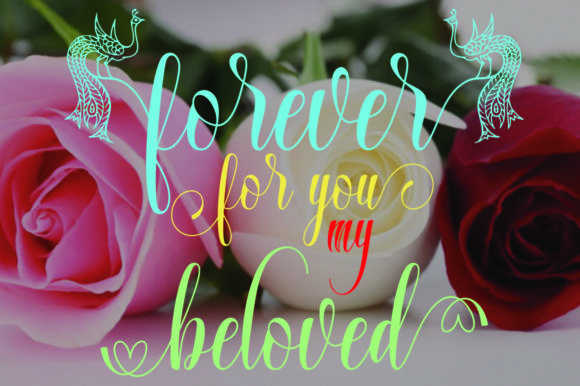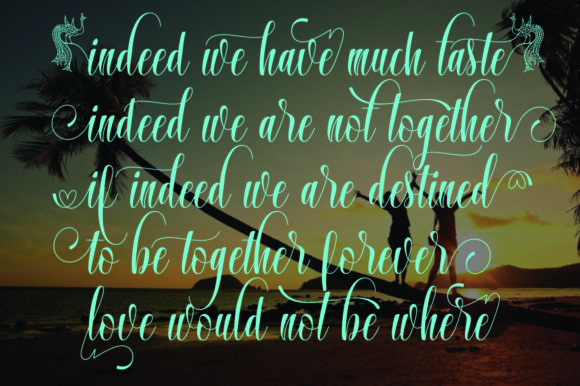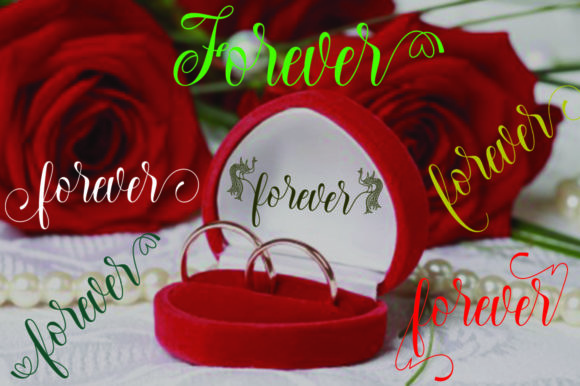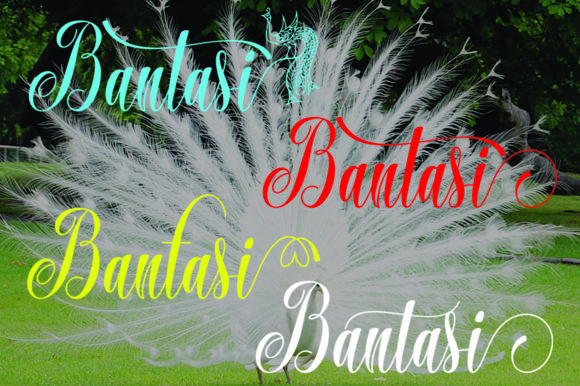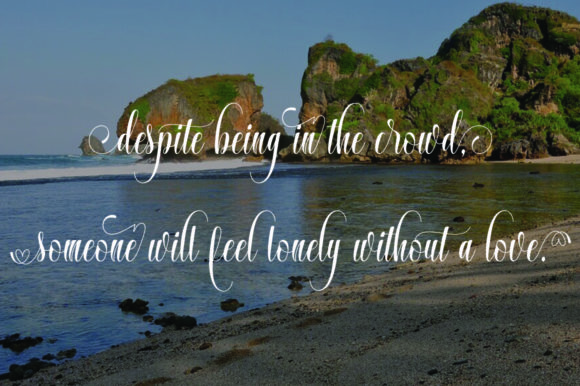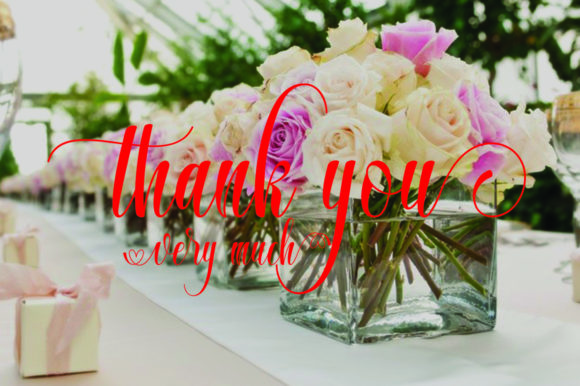
HomeScript FontsBantasi Font Script Fonts Bantasi Font FacebookXPinterestWhatsApp Bantasi Font Poster 2 Bantasi Font Poster 3 Bantasi Font Poster 4 Bantasi Font Poster 5 Bantasi Font Poster 6 Bantasi Font Poster 7 About Bantasi Font Bantasi is a stunning script font with amazing swashes! DOWNLOAD ON CREATIVE FABRICAThis font is sold and delivered by Creative Fabrica. Font Canyon may earn a commission if you buy through this link. People also explored Pranovia Font Way Kambas Font Stone Masher Font Starlight of Christmas Font Sky Dance Font Gasthony Signature Font Floral Font Finishing Font Shulman PB 276 0 TagsBantasi Font Previous articleContener FontNext articleStoneage Font LEAVE A REPLY Cancel reply Comment: Please enter your comment! Name:* Please enter your name here Email:* You have entered an incorrect email address! Please enter your email address here Website: Save my name, email, and website in this browser for the next time I comment. Personal Use Free White Rose Personal Use Free Read more about this font Triangular Curves Personal Use Free Read more about this font Glosery Personal Use Free Read more about this font Whitelight Personal Use Free Read more about this font BLOG Transform Your Website: Elevate Your Typography with 7 Best Web Font Generators Are you ready to transform your website's typography from ordinary to extraordinary? Great! Today, we're diving into the world of web font generators, which... Modern Sans-Serif Fonts That Brands Love in 2025 How to Install and Use Fonts on Windows, macOS, and Web Projects Free vs Paid Fonts: Why Investing in Premium Fonts Is Worth It